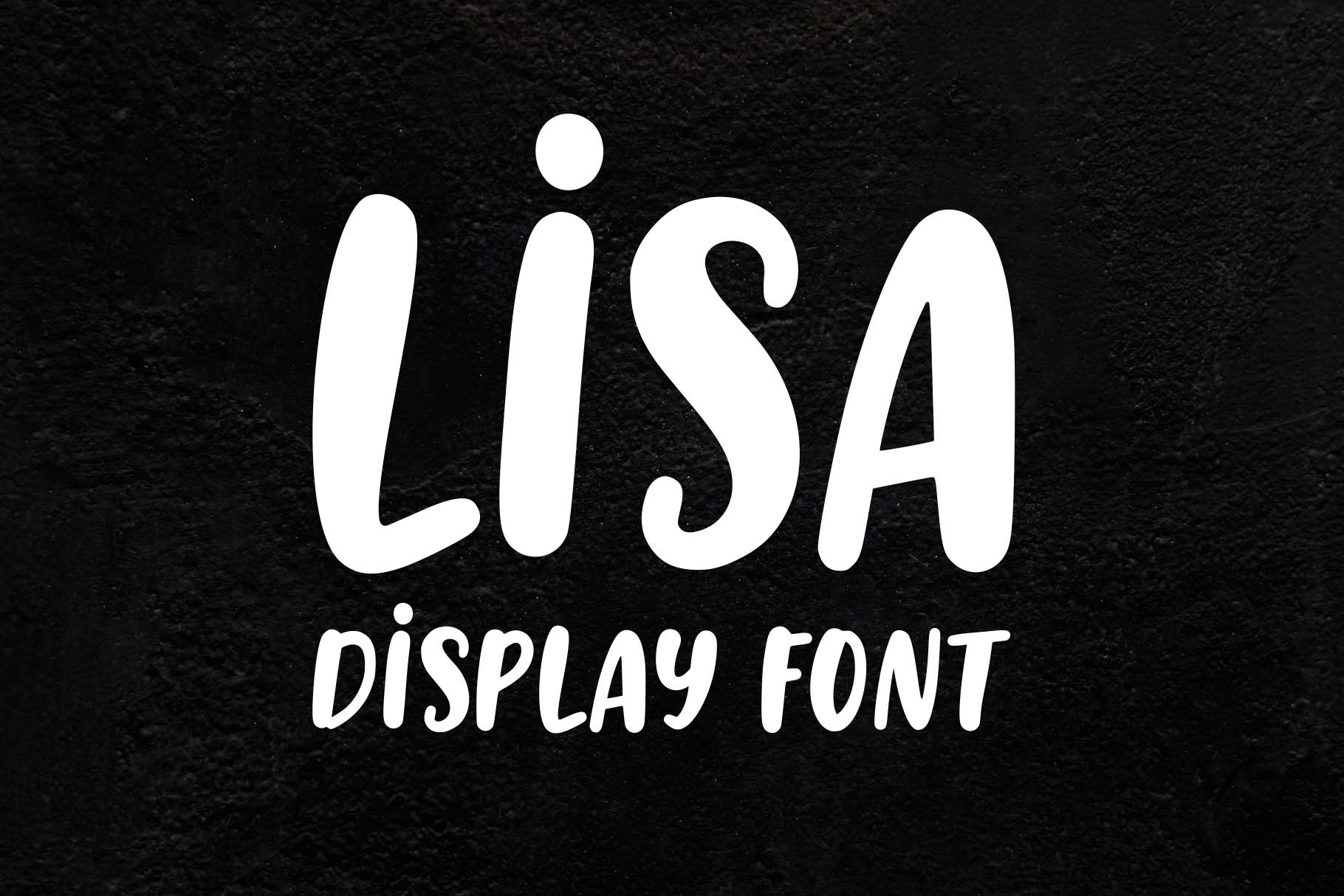
Lisa - bold rounded font
LISA is an all caps display font perfect for: Branding, Logo Design, Greeting Cards, Stationery Design, Invitations, T-shirts, Apparel, Packaging designs, Posters, Typographic Design, and so much more.
Multilingual support for various languages including: French, German, Spanish, Portuguese, Italian, Dutch, Finnish, Swedish, and more